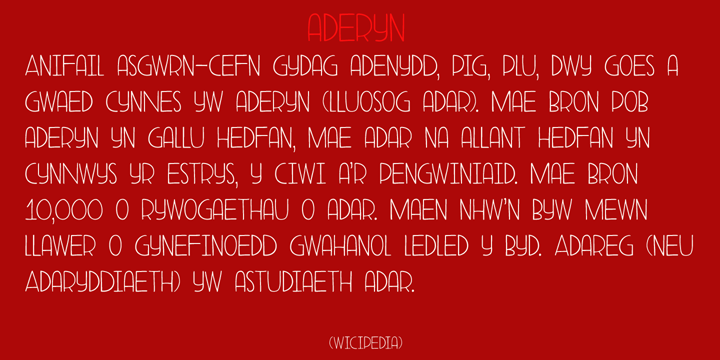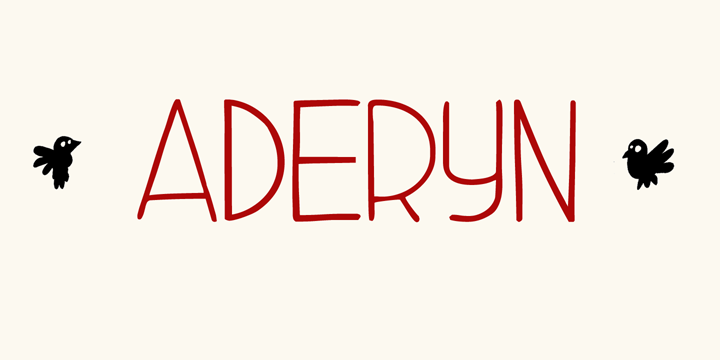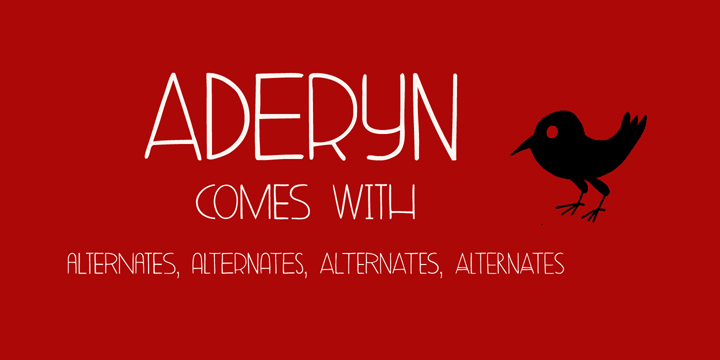
Aderyn is a hand display font family. This typeface has twelve styles and was published by Hanoded.
Aderyn is a hand drawn, elegant font with a light touch to it. Aderyn is soft and sleek, but also comes in bolder styles to give a little extra oomph to your designs.
Aderyn is Welsh for ‘bird’, a language I meant to master, but never took beyond ‘good morning’, ‘bird’ and ‘cat’. I know, it’s pathetic…
Aderyn comes in 12 styles, all of which have kerning, stylistic and contextual alternates for both lower and upper case letters. It even has a smiley!